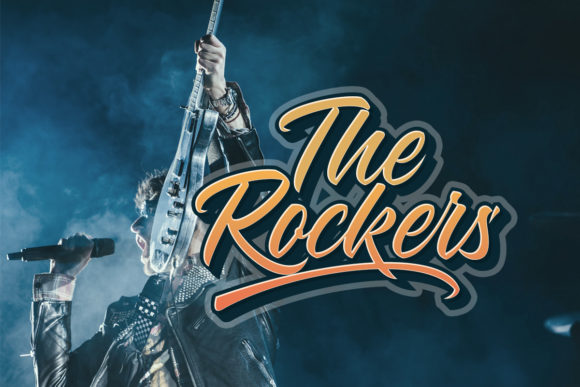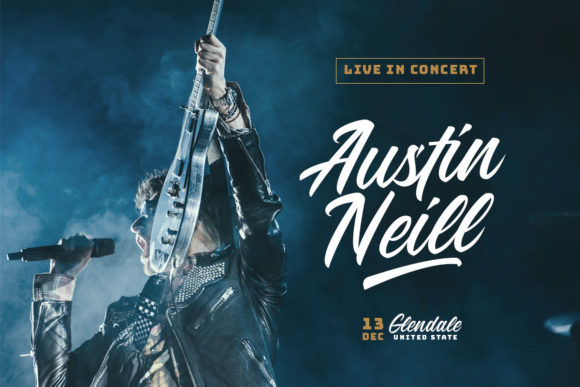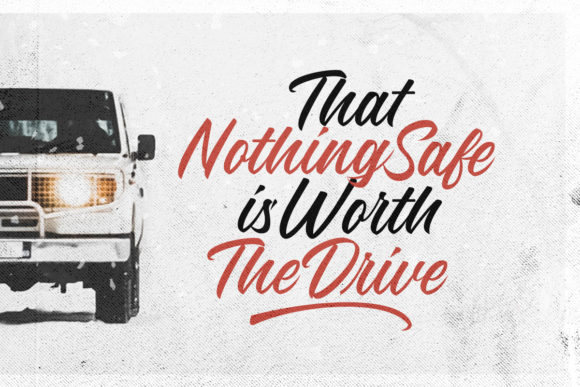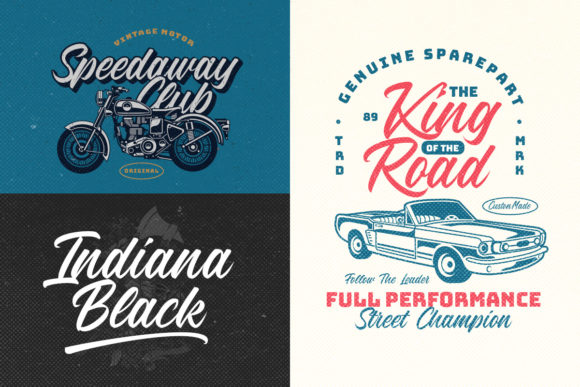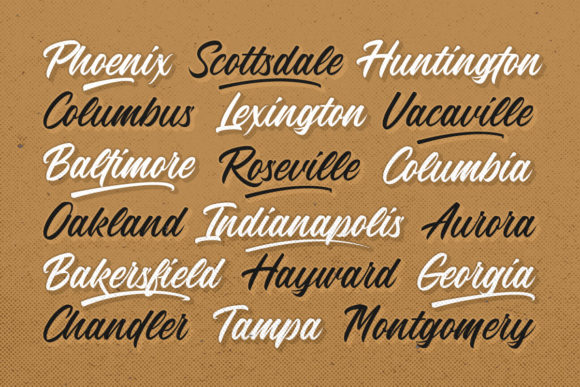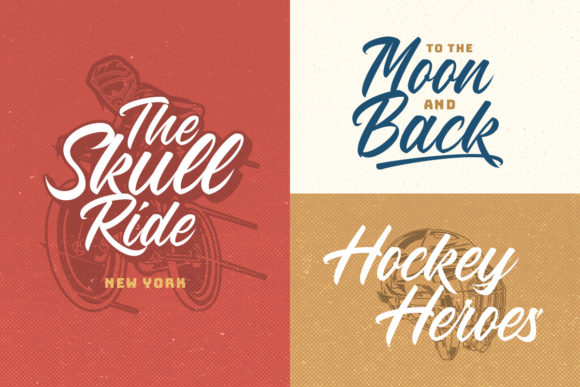
The Perfect Blend of Elegance and Nostalgia
Have you ever found yourself pouring over old photographs, mesmerized by the way the past seems to come alive in the faded letters and cursive script? For designers, it’s moments like these that spark the creative process, and inspire us to bring a piece of that nostalgia into our work. And that’s exactly what the Blue Phantom Font does – it captures the essence of a bygone era, and brings it into the modern world with a touch of sophistication and style.
Handcrafted with love and attention to detail, Blue Phantom Font is more than just a typeface – it’s an experience. Whether you’re looking to add a touch of elegance to your branding, or create a sense of nostalgia in your design, this font is the perfect choice. With its unique blend of modern and vintage flair, Blue Phantom Font is a valuable tool for designers who want to stand out from the crowd and create truly memorable work.
Blue Phantom Font Key Features
- Unique Characteristics: The Blue Phantom font features a unique blend of modern and vintage elements, creating a distinctive and eye-catching aesthetic.
Blue Phantom Font Review
I recently had the chance to work with the Blue Phantom font, and I have to say, it’s a mixed bag. On the one hand, there are some things that really shine ✨.
- Unique aesthetic: Blue Phantom has a distinct, otherworldly feel that’s perfect for sci-fi or fantasy projects.
- Highly customizable: The font’s modular design makes it easy to adjust and combine different components to achieve the desired look.
- Good legibility: Despite its unconventional design, Blue Phantom is surprisingly easy to read, even at smaller sizes.
However, there are also some limitations to consider ⚠️.
- Not ideal for body text: While Blue Phantom works well for headings and titles, it may not be the best choice for large blocks of body text.
- Limited language support: The font’s design is optimized for Latin-based languages, so it may not be suitable for languages that require more complex character sets.
- Requires careful kerning: Because of its unique design, Blue Phantom can be tricky to kern properly, which may require additional effort from the designer.
Overall, I’d say that Blue Phantom is a solid choice for designers who are looking for a distinctive, high-end font for their projects. However, it may not be the best fit for every design scenario.
The Blue Phantom Font is ideal for creative projects, such as:
- Graphic design and branding materials.
- Editorial and publishing materials.
For optimal use, pair the Blue Phantom Font with bold colors and striking graphics to create a visually appealing design.
Can I customize the Blue Phantom Font?
Yes, the Blue Phantom Font is designed to be highly customizable. It supports a wide range of OpenType features, including ligatures, swashes, and stylistic sets. Additionally, the font can be easily edited and customized using font editing software like FontLab or Glyphs.